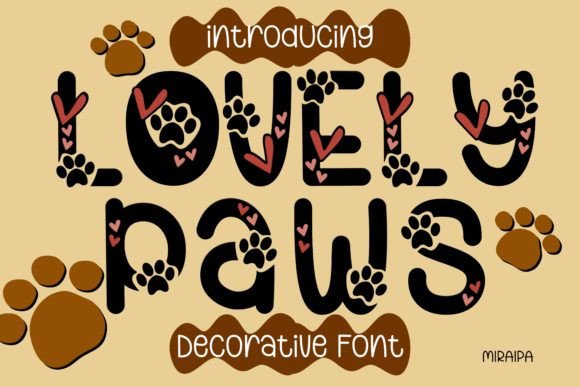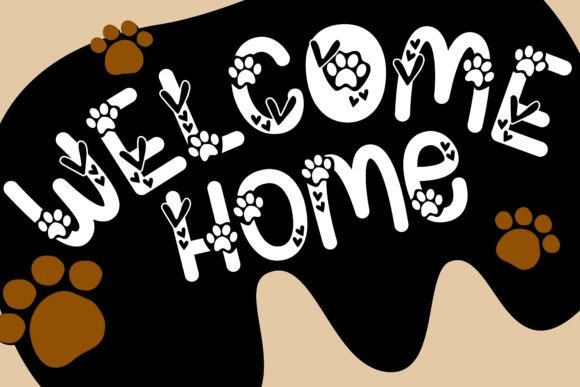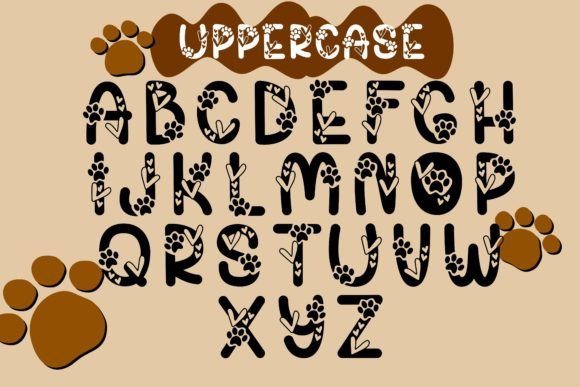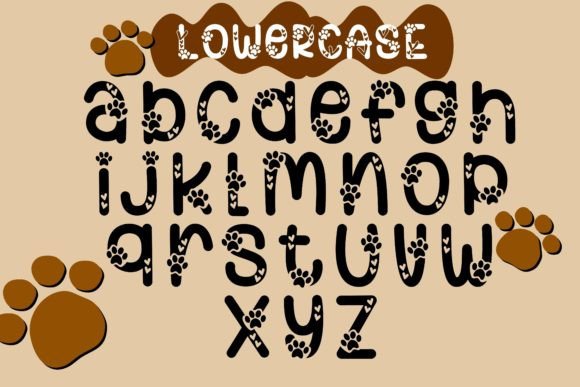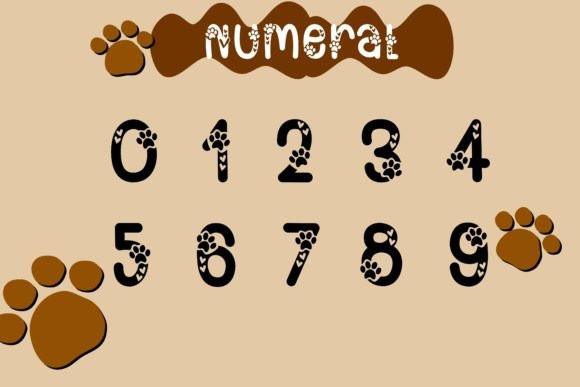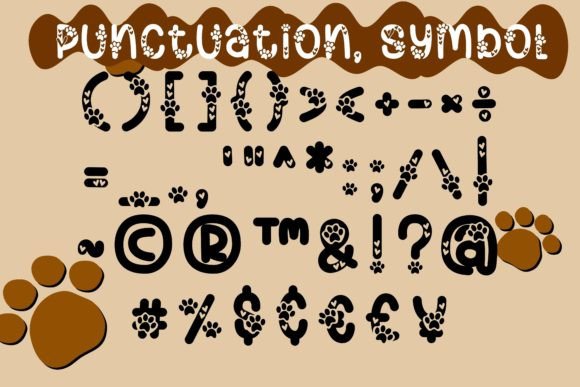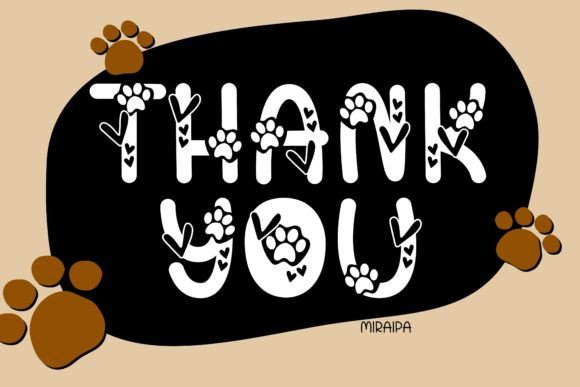
Lovely Paws Font Font
Lovely Paws is a sweet and adorable handwritten decorative font. Add it to your creative ideas and you will be amazed by the outcome generated!